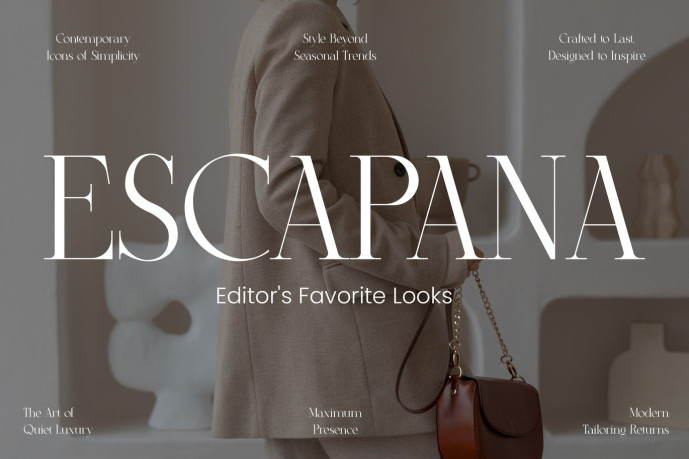
Escapana – Elegant Font
Escapana is a modern editorial display serif designed for fashion branding, magazine layouts, and sophisticated visual identities. Its high-contrast strokes, refined proportions, and sharp serif terminals create an elegant presence while maintaining excellent readability in large headlines. Inspired by contemporary editorial aesthetics, Escapana brings a polished and expressive personality that elevates branding, social media, packaging, and creative publishing.
Perfect for designers who want a clean yet distinctive display typeface, Escapana balances classic sophistication with modern minimalism. Whether you’re creating lookbooks, Instagram campaigns, posters, cosmetic packaging, invitations, or website hero sections, its graceful letterforms instantly communicate confidence and refined style.
Bring a refined editorial feel to every design with Escapana. Whether you’re creating branding, magazine layouts, social media posts, posters, packaging, or website headers, this elegant display serif helps your work look clean, stylish, and memorable with minimal effort.